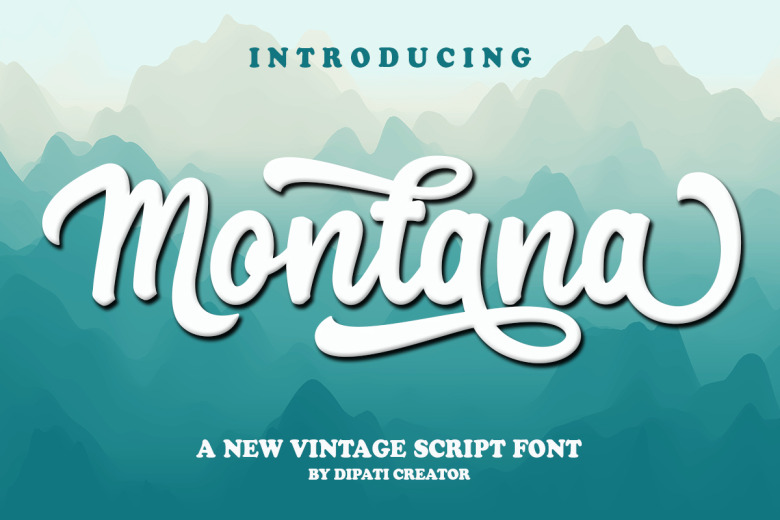
Montana is a lovely, elegant and vintage styled script font. Fall for its ravishing style and use it to create gorgeous wedding invitations, beautiful stationary arts, t-shirt or hoodie prints, eye-catching social media posts, product packaging and much more! This font is PUA encoded which means you can access all glyphs and swashes with ease!
Montana Vintage Script Font